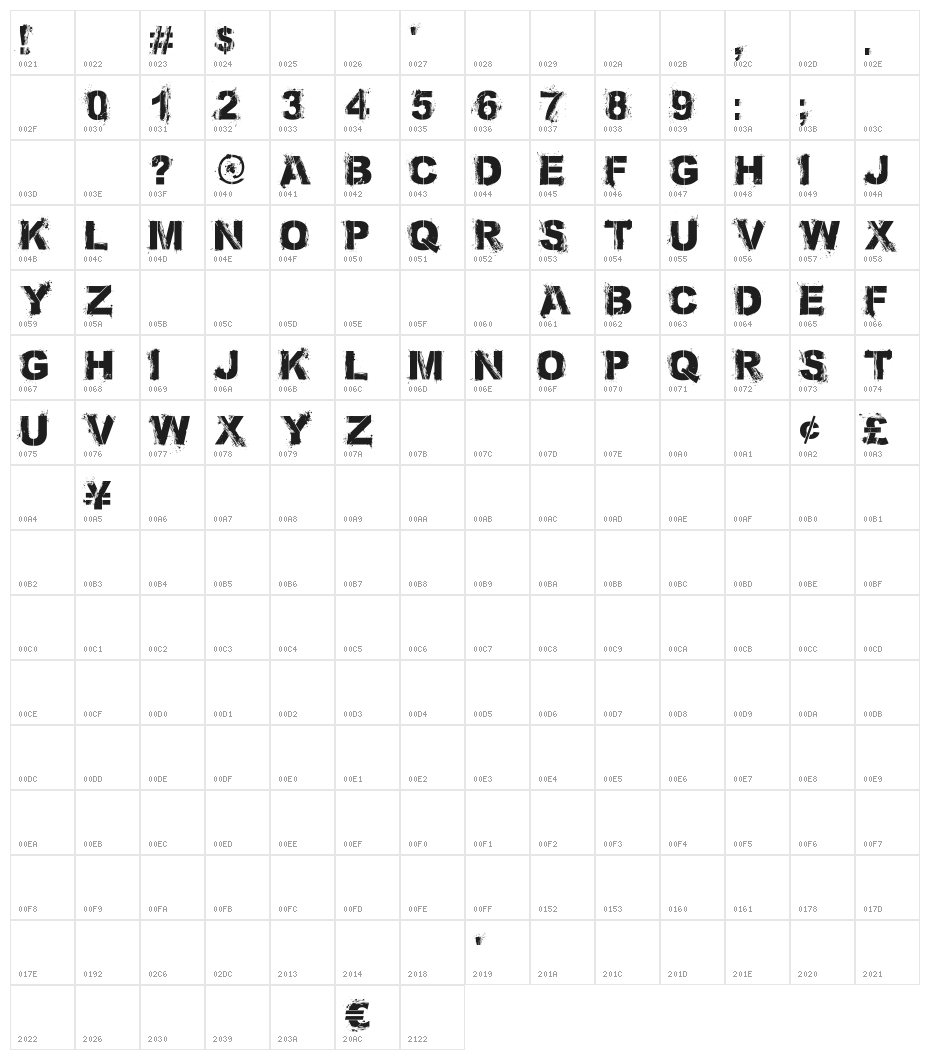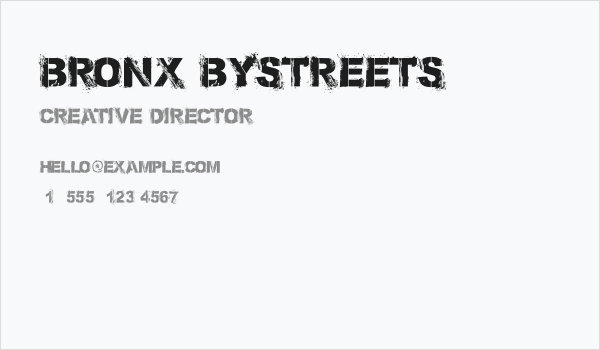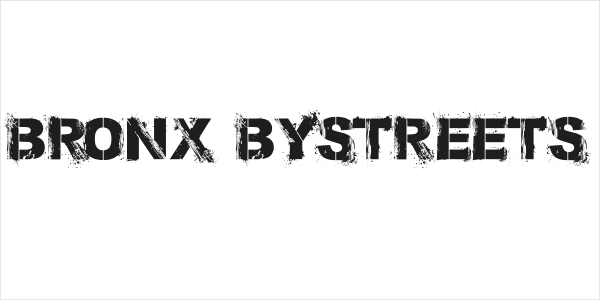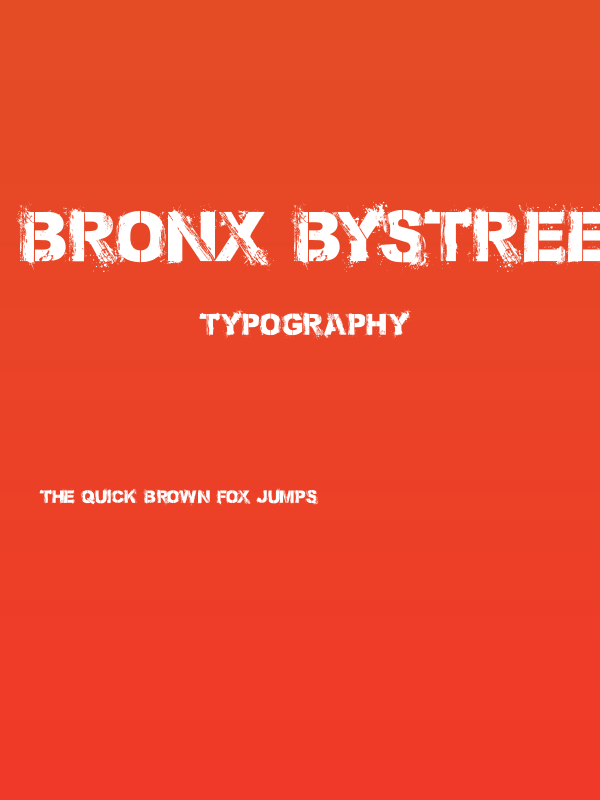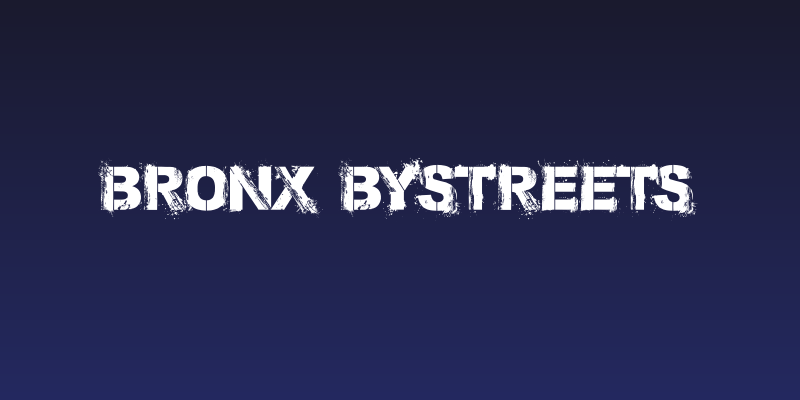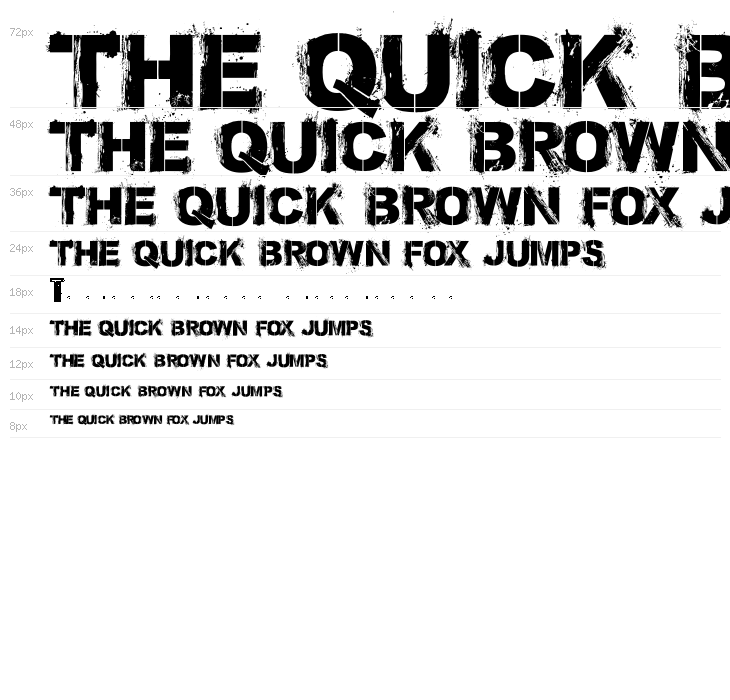
Bronx Bystreets Font
Bronx Bystreets Description
This font features a bold, distressed style that mimics the gritty, urban aesthetic of street art. Each character is heavily textured with a worn, grunge effect, giving it a raw and edgy appearance. The uppercase letters are prominent and impactful, while the numbers and special characters maintain the same rugged texture. This font is ideal for projects that require a strong, rebellious vibe, such as music album covers, posters, or urban-themed branding. The unique texture adds depth and character, making it stand out in any design.
| Overall Style | Urban, Grunge, Edgy |
| Proposed Projects | Ideal for music album covers, posters, urban-themed branding, and edgy graphic designs. |